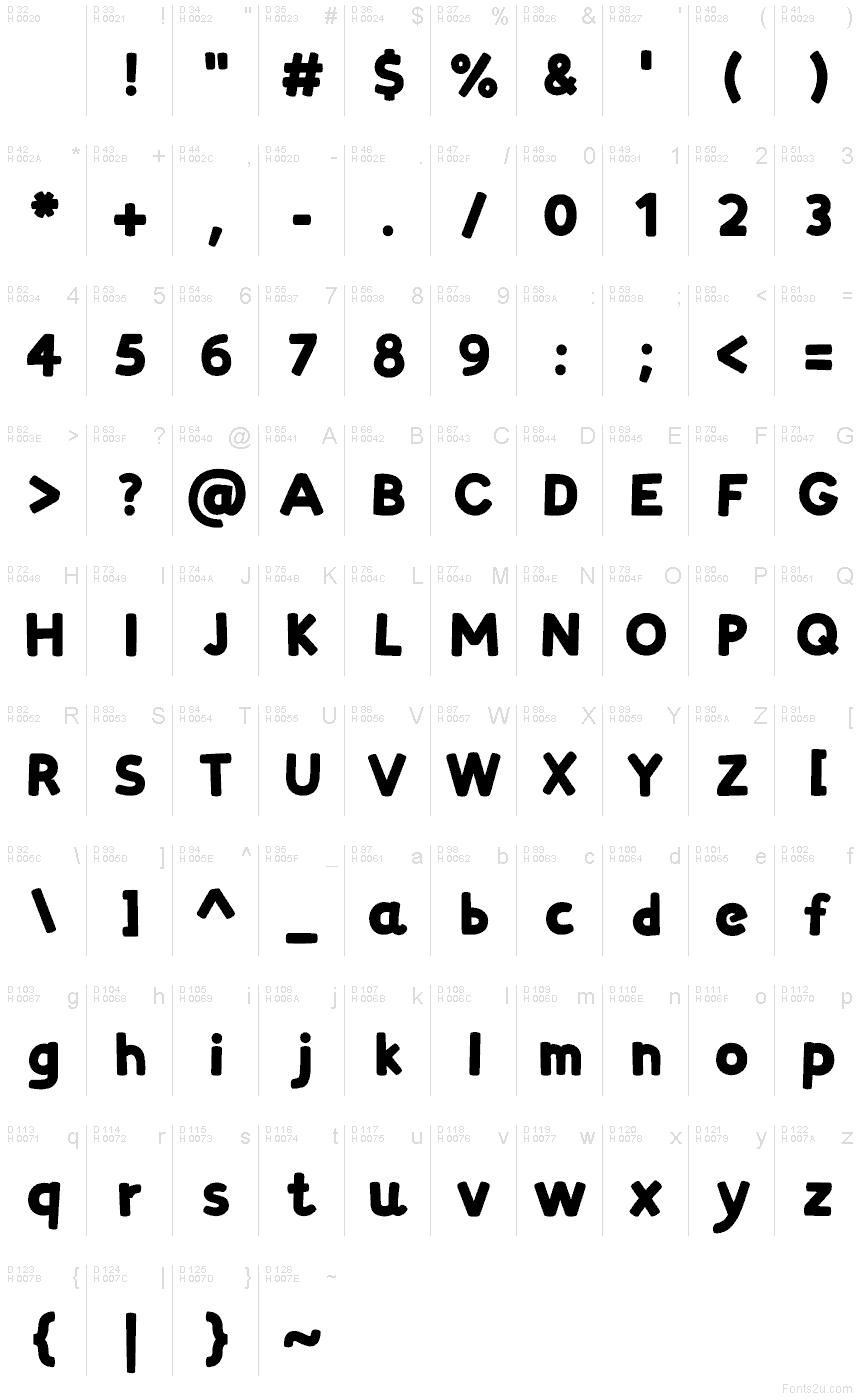
Zyzol Round
Zyzol Round font by Szymon Furjan is a free cartoon display font. It solves a common headache: getting playful energy without losing readability. Thick, inky strokes and pillow-soft corners give it a squishy, hand-cut feel, while its steady rhythm and open shapes keep words clear at a glance. It brings bounce, not chaos—friendly, bold, and instantly approachable.
Using Zyzol Round, headlines pop with cheerful confidence on kids’ packaging, classroom posters, ice cream menus, stickers, app onboarding screens, and YouTube thumbnails. This free font shines when set big with a touch of extra tracking. For supporting text, pair it with a clean geometric sans to keep layouts tidy and let the bubbly letters take center stage.